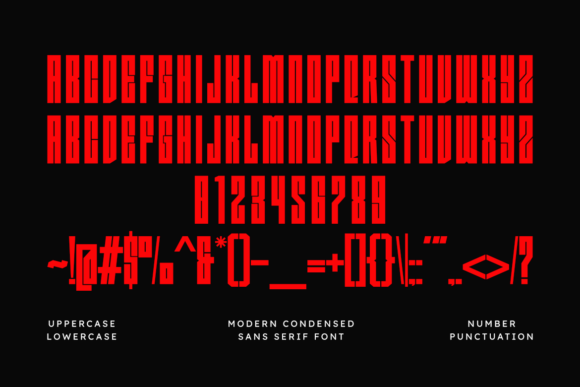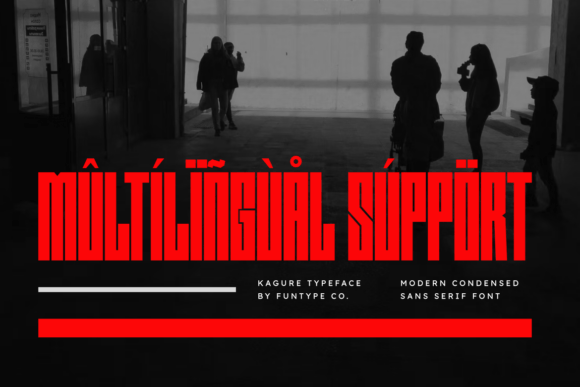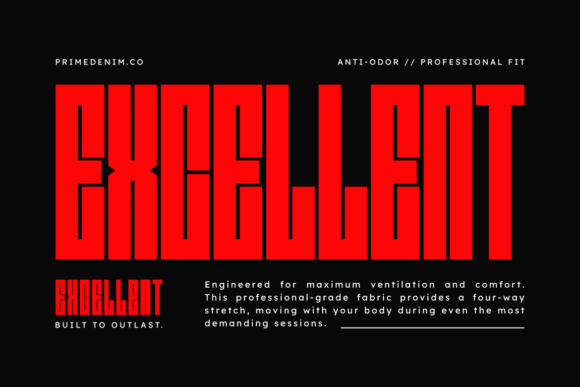
Introduction to Kagure Font
Kagure is a bold and powerful modern condensed sans serif font designed for high-impact and precise typography.
With its refined vertical structure and clean, solid lines, this font is perfect for strong headlines, professional sports logos, industrial branding, and high-impact digital posters Its confident and balanced design gives your visuals a striking, professional, and advanced look.
Key Features of Kagure Font
Why Choose Kagure Font?